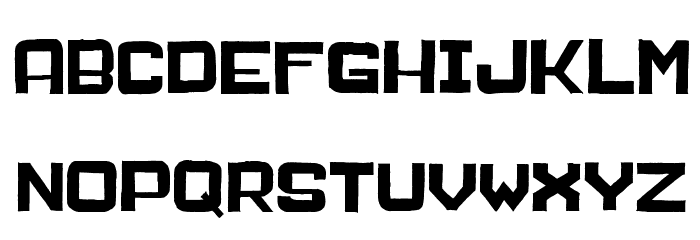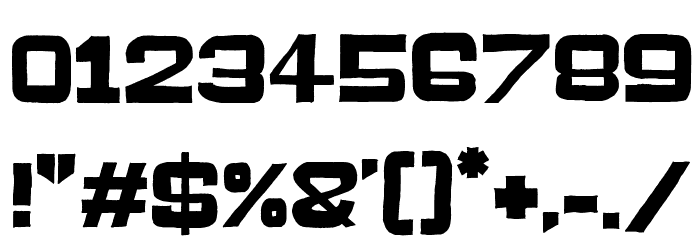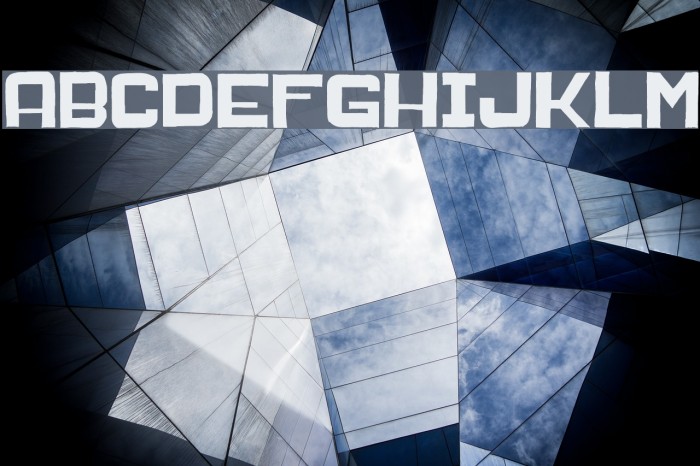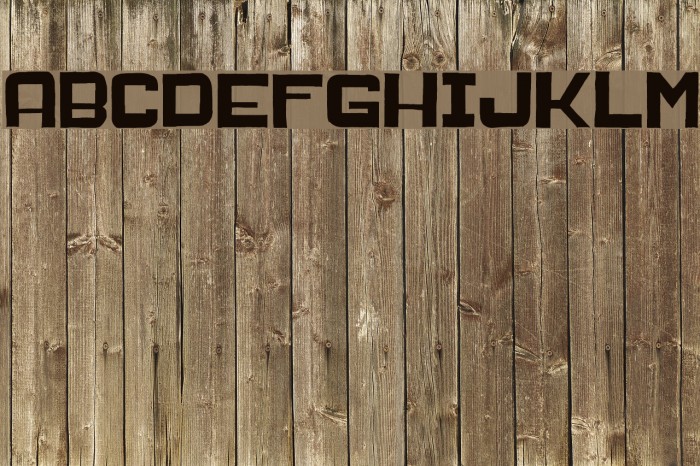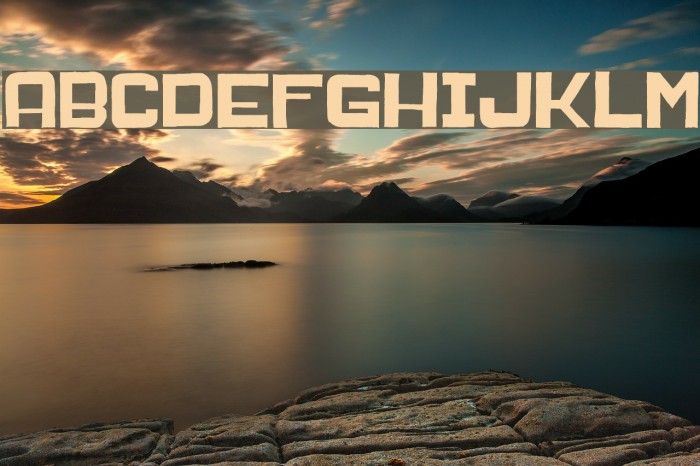
Public Market Font
This font features a bold, rugged style with a distinctly industrial feel. The characters are blocky and angular, with sharp edges and a slightly distressed texture that gives them a worn, vintage appearance. The uppercase letters are uniform in height, while the lowercase letters maintain a consistent style, adding to the overall cohesive look. The numerals and special characters follow the same design principles, ensuring a harmonious visual experience. This font's unique aesthetic makes it stand out, offering a strong presence that commands attention.
A bold, industrial-style font with a rugged, vintage appearance.
- Overall Style: Vintage